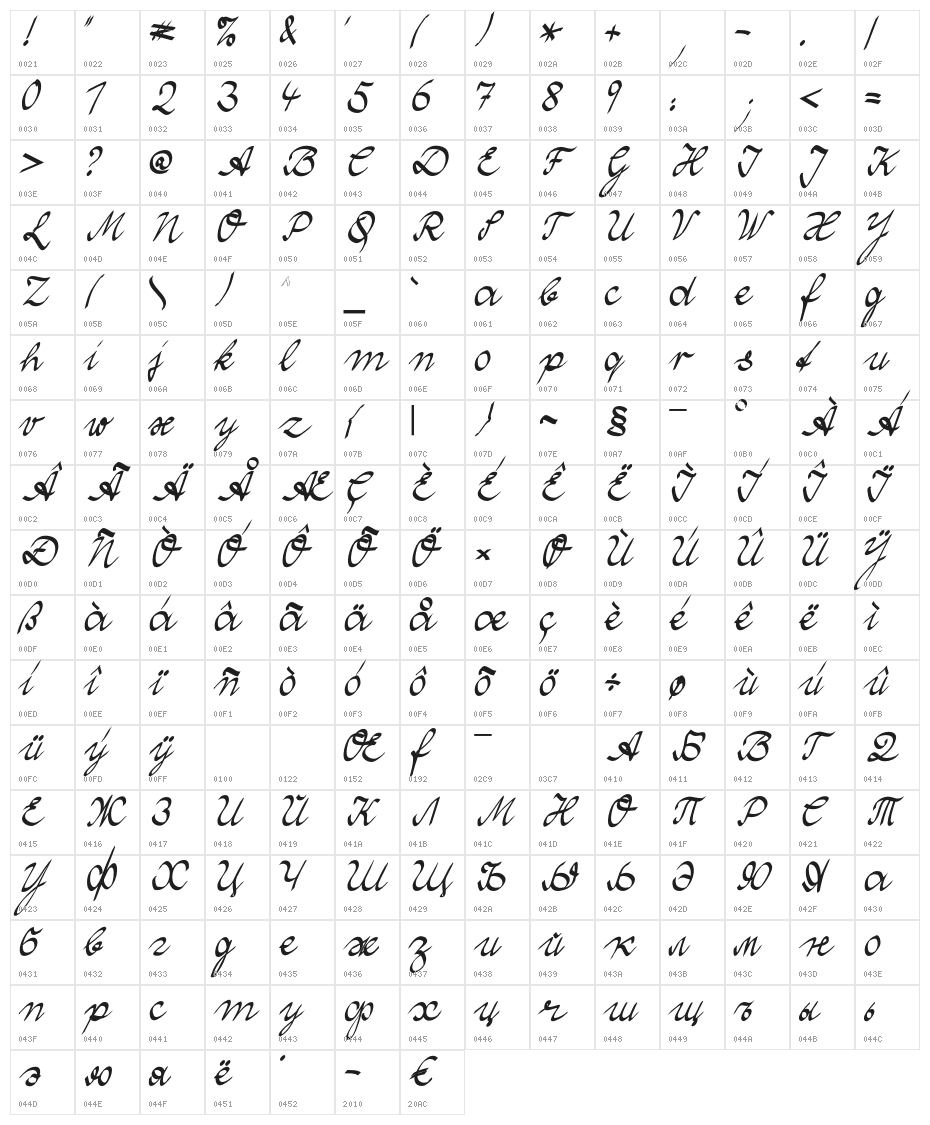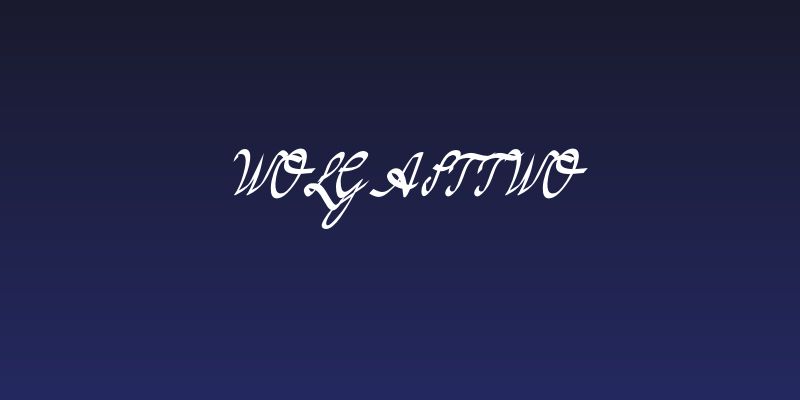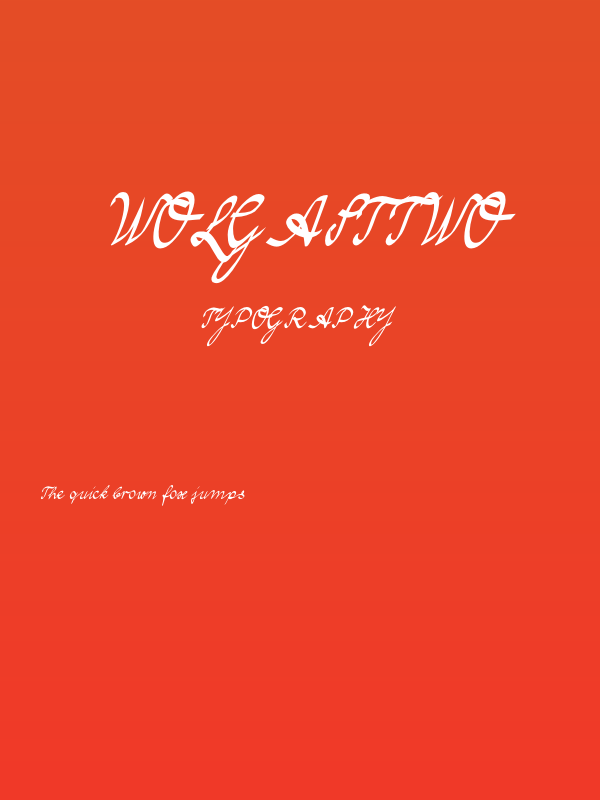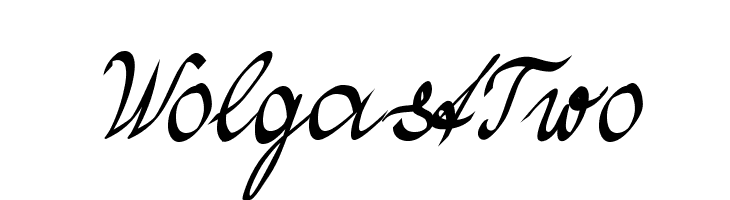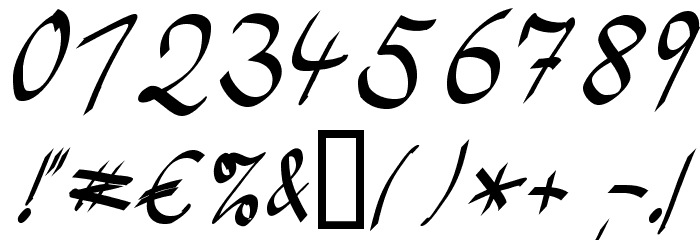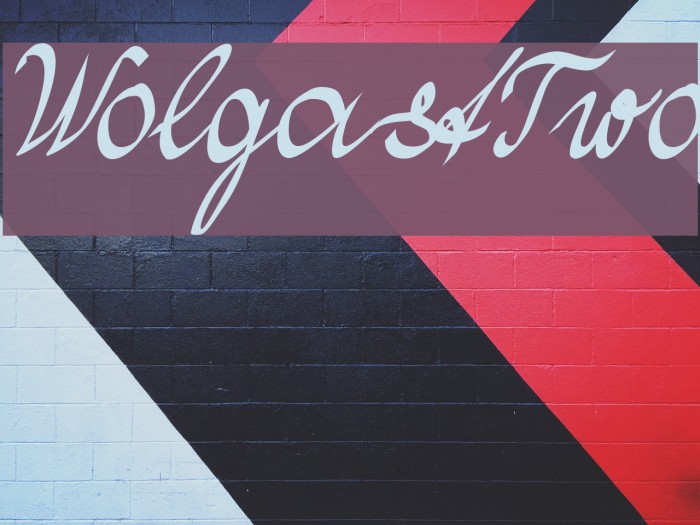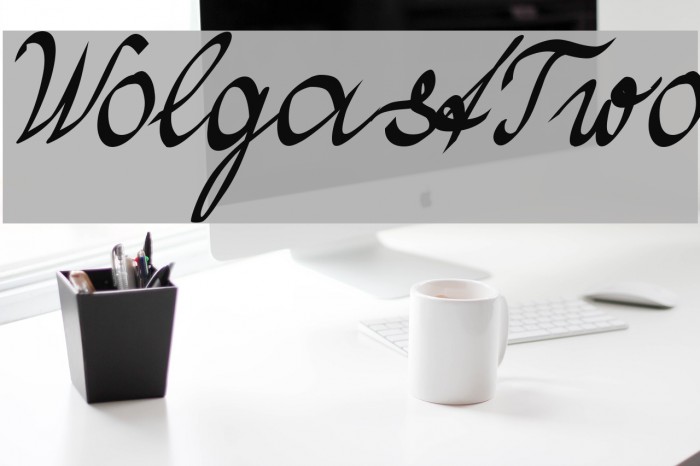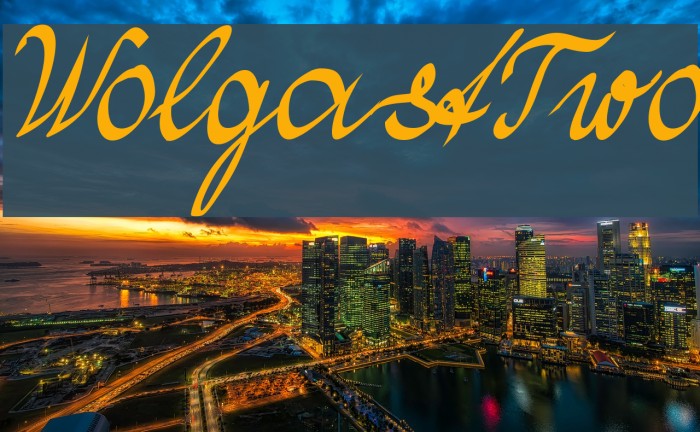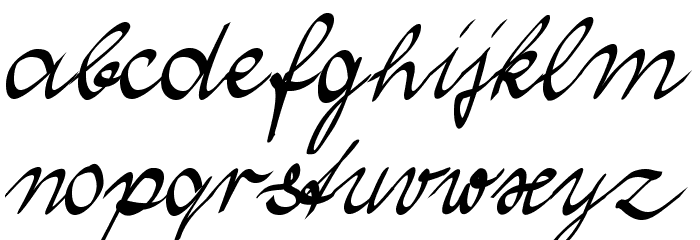
WolgastTwo Font
WolgastTwo Description
This font exhibits a dynamic and elegant cursive style, characterized by flowing and interconnected strokes that mimic the fluidity of handwriting. The uppercase letters are bold and slightly slanted, adding a sense of movement and grace. The lowercase letters maintain a consistent style, with smooth curves and loops that enhance readability while preserving the script's artistic flair. Numbers and special characters are designed to complement the overall aesthetic, ensuring a cohesive appearance across all text. The font's unique style makes it suitable for creative and expressive projects, where a touch of sophistication and personality is desired.
| Overall Style | Elegant, Artistic |
| Use Case | Logos, Invitations, Decorative text |
| Proposed Projects | Ideal for wedding invitations, greeting cards, logos, and branding materials that require a personal and artistic touch. |